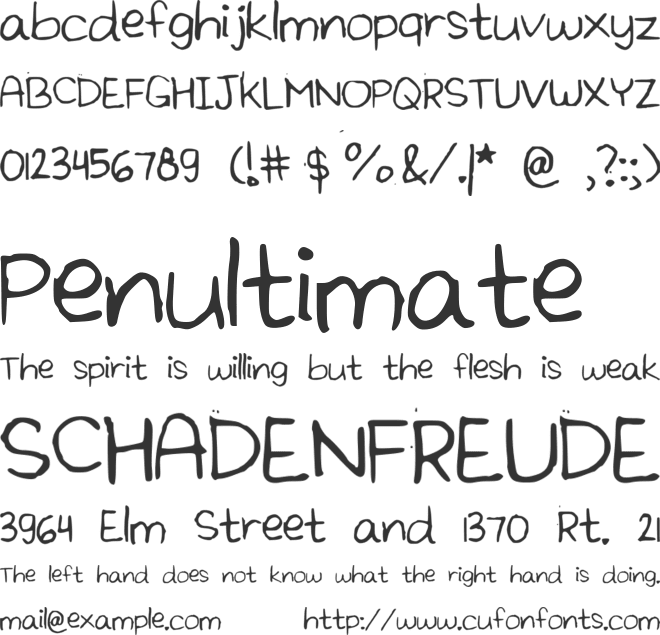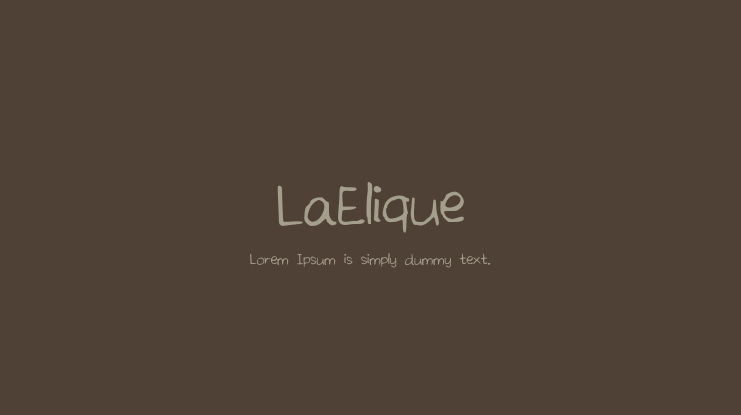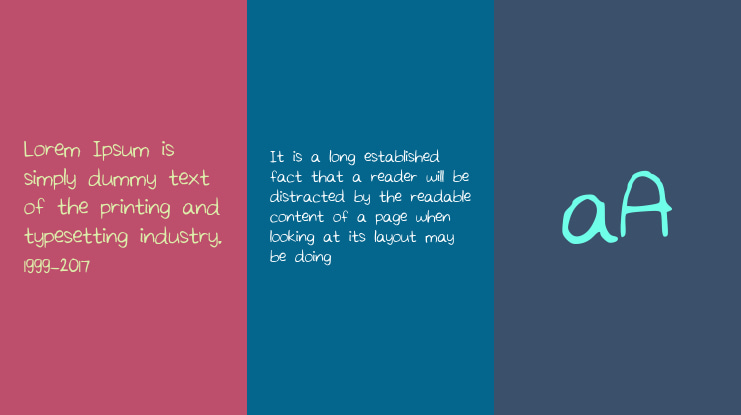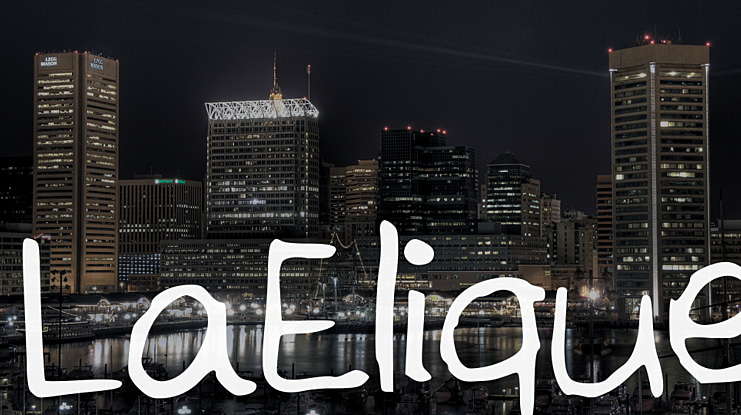
LaElique Font
It's a pencil style.
matches to write a fancy letter, or a memo like the illustration.
and it reminds me of my school, miss them so much!